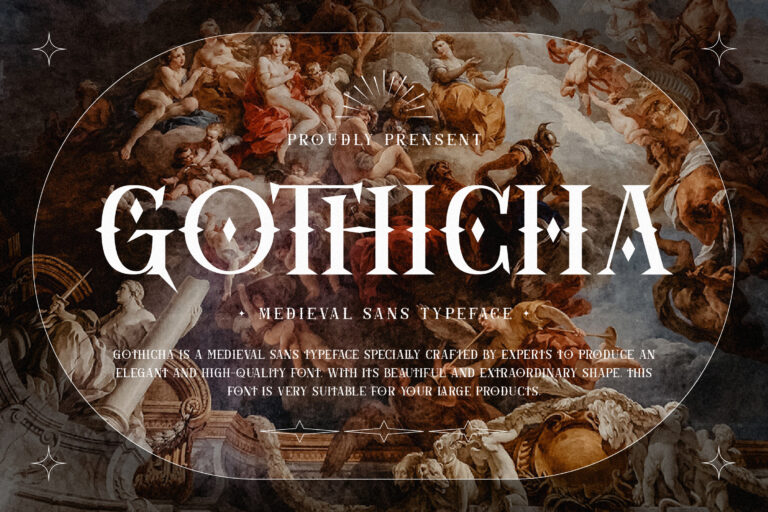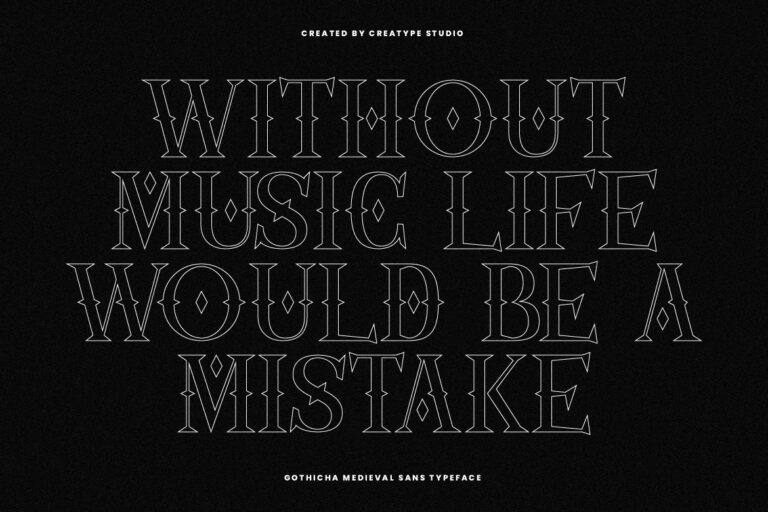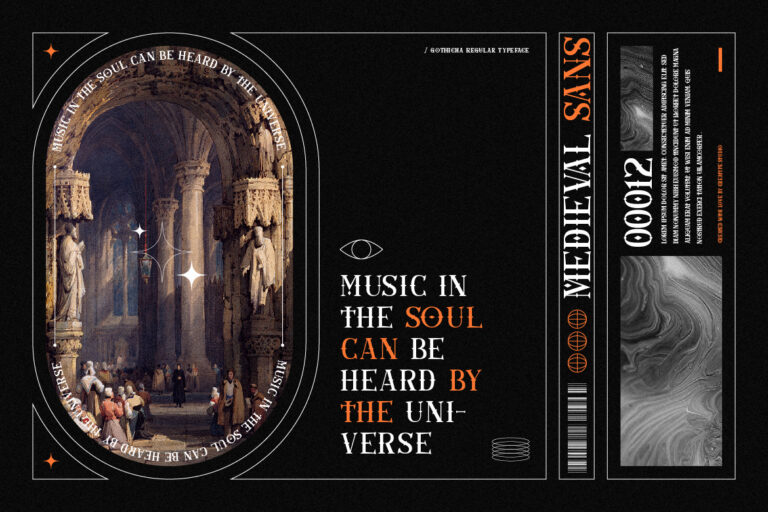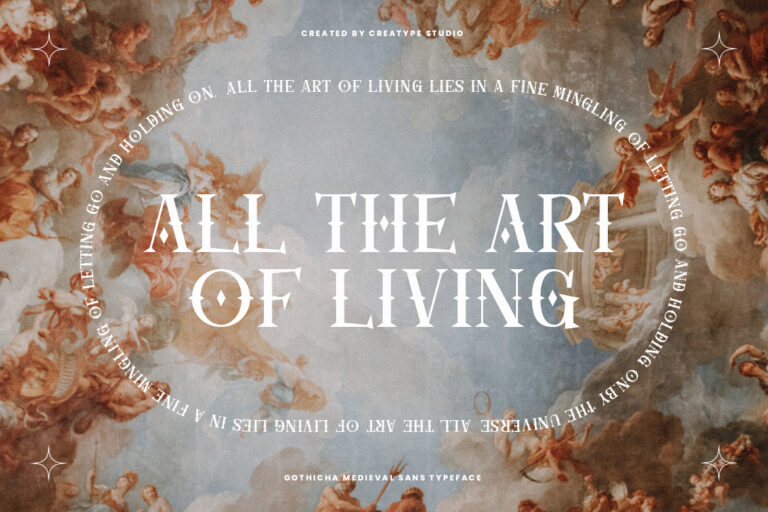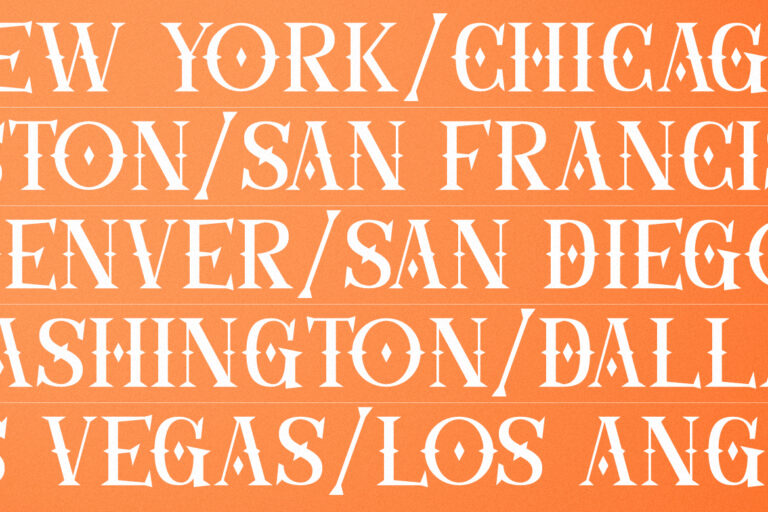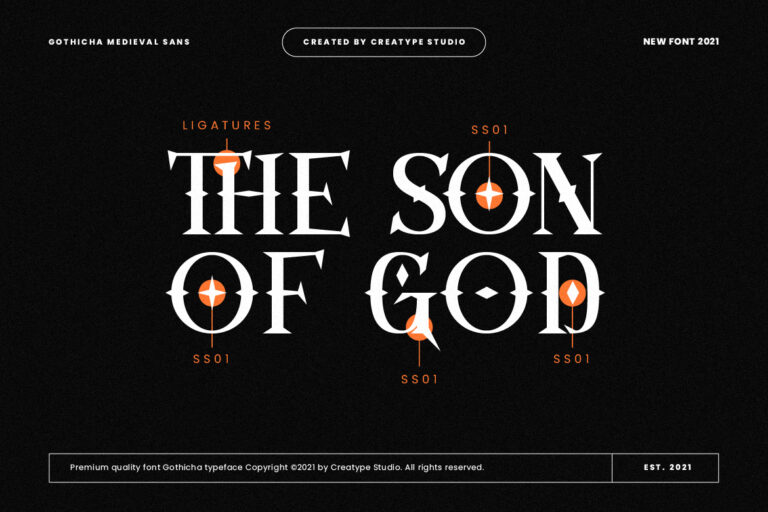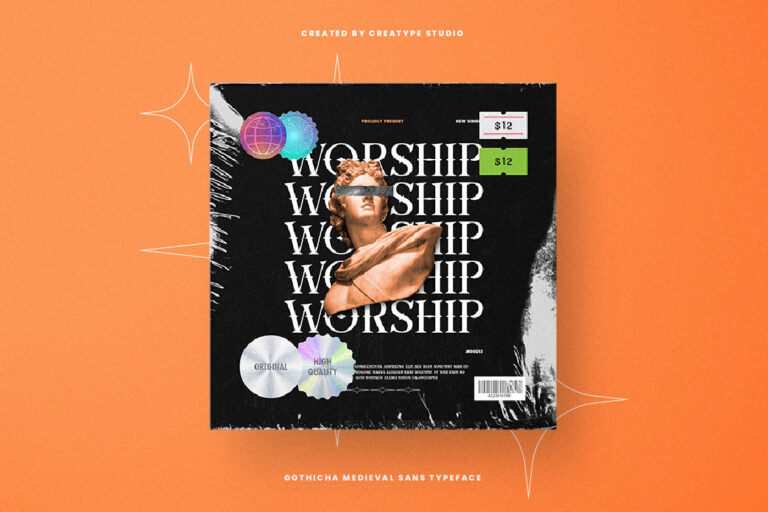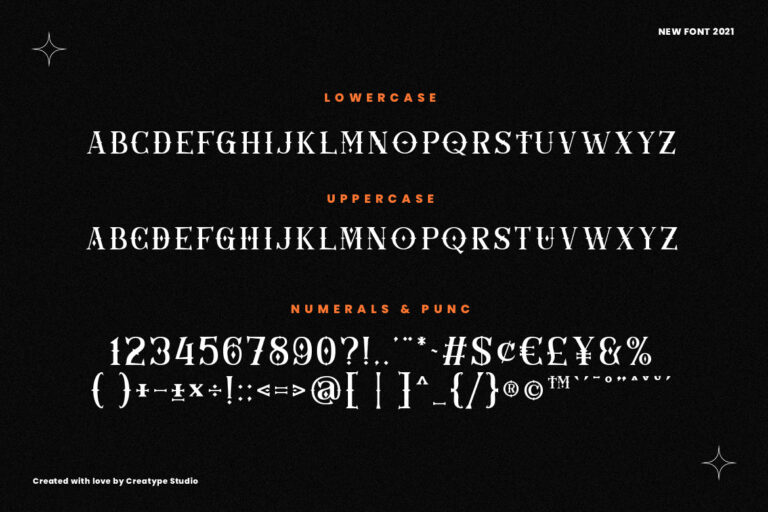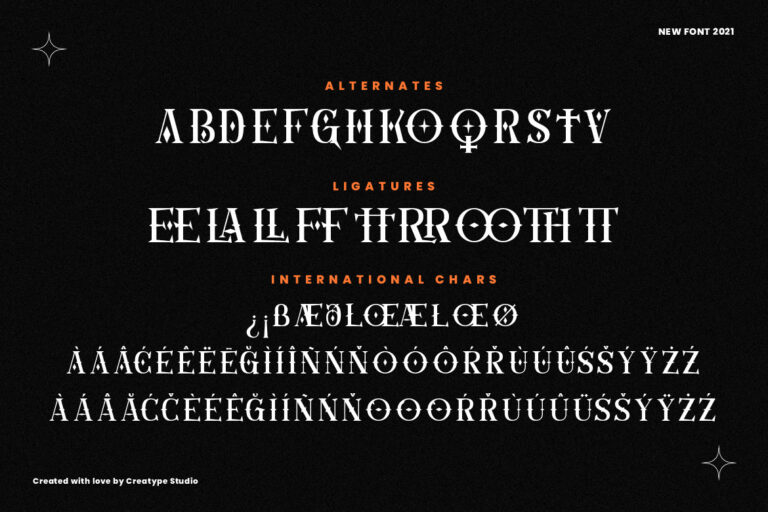
Gothicha Medieval Sans
Gothicha is a medieval sans typeface specially crafted by experts to produce an elegant and high-quality font. With its beautiful and extraordinary shape, this font is very suitable for your large products.
Gothicha is perfect for branding projects, logo, wedding designs, social media posts, advertisements, product packaging, product designs, label, photography, watermark, invitation, stationery and any projects that need handwriting taste.